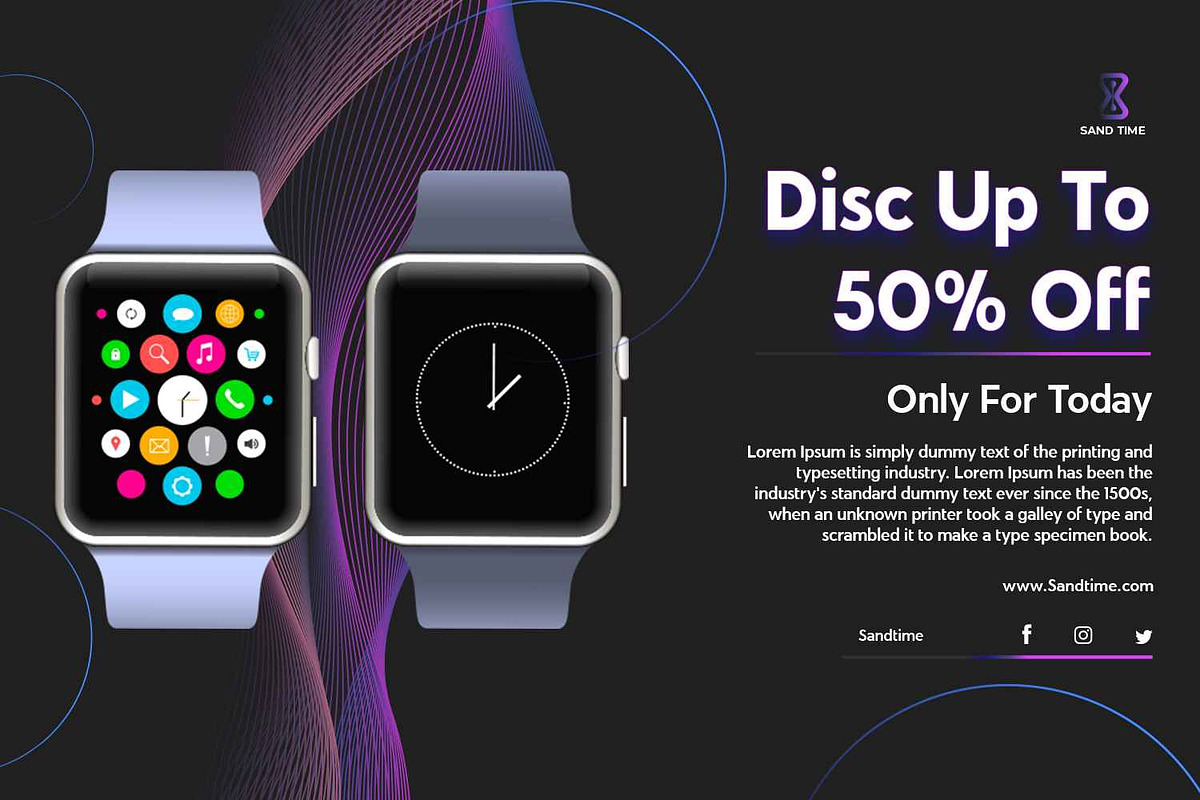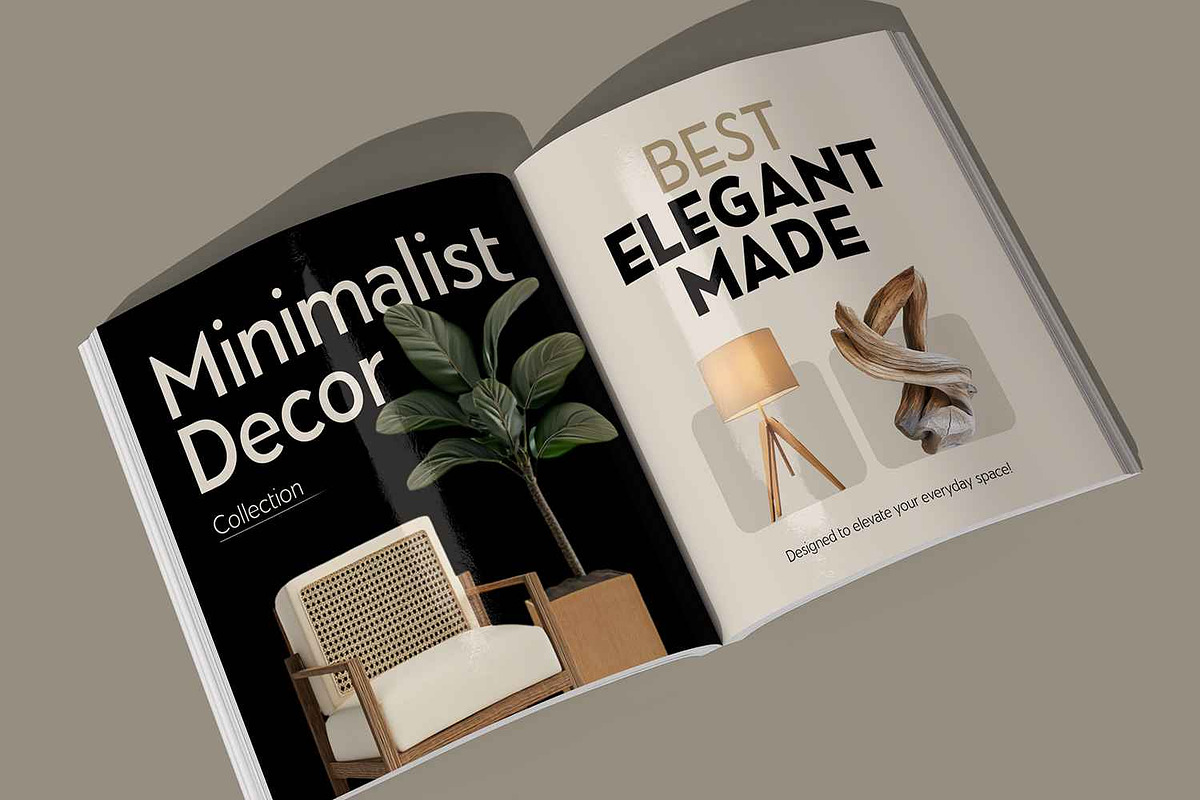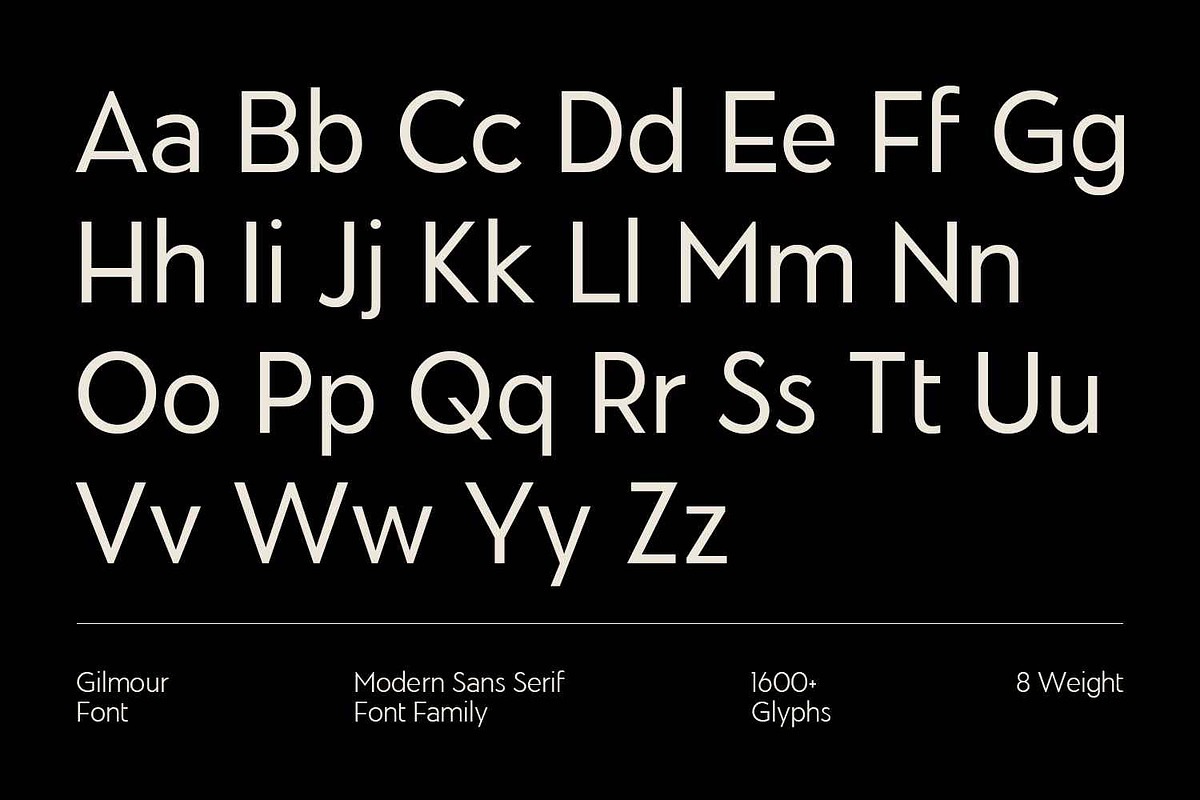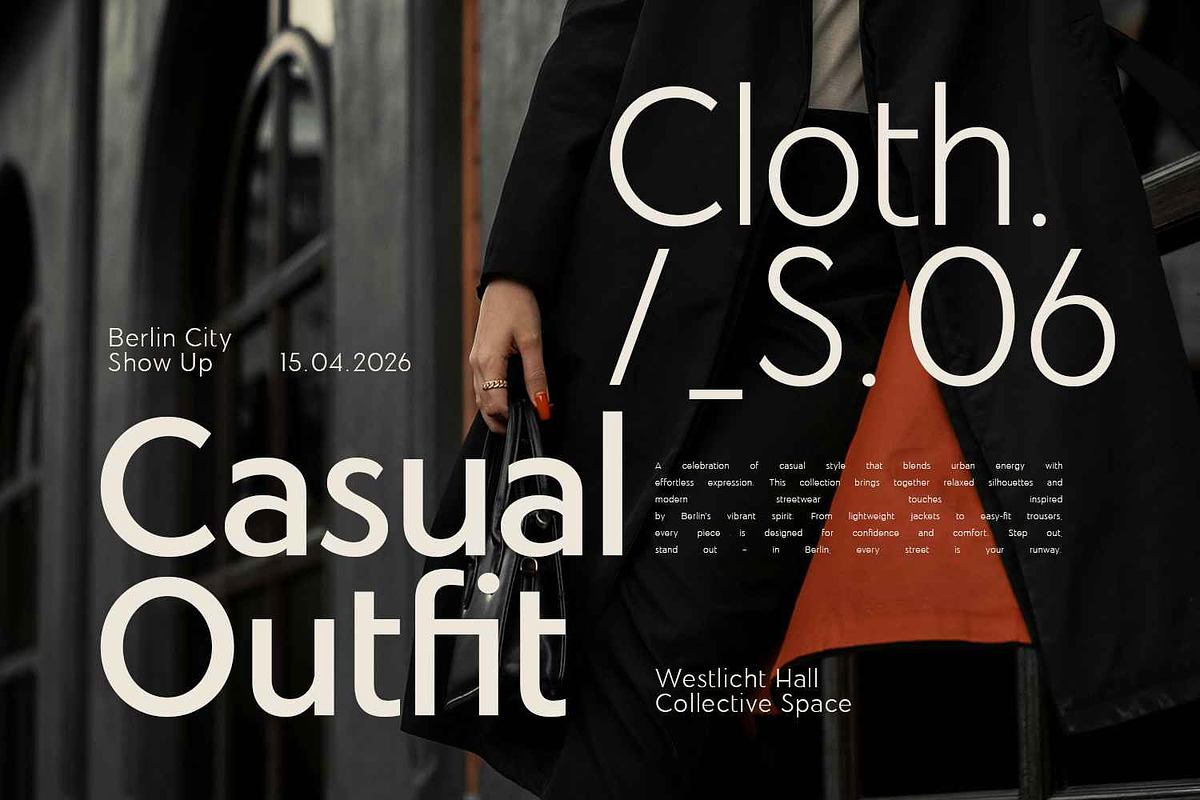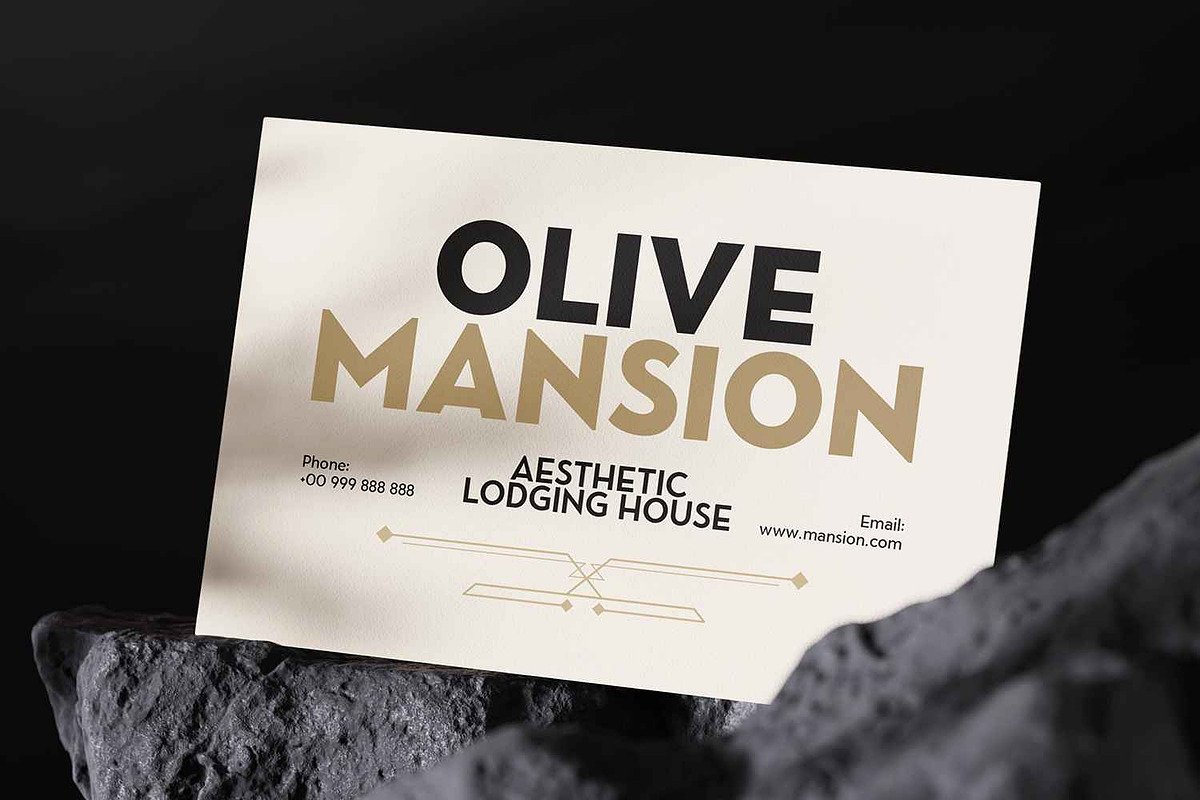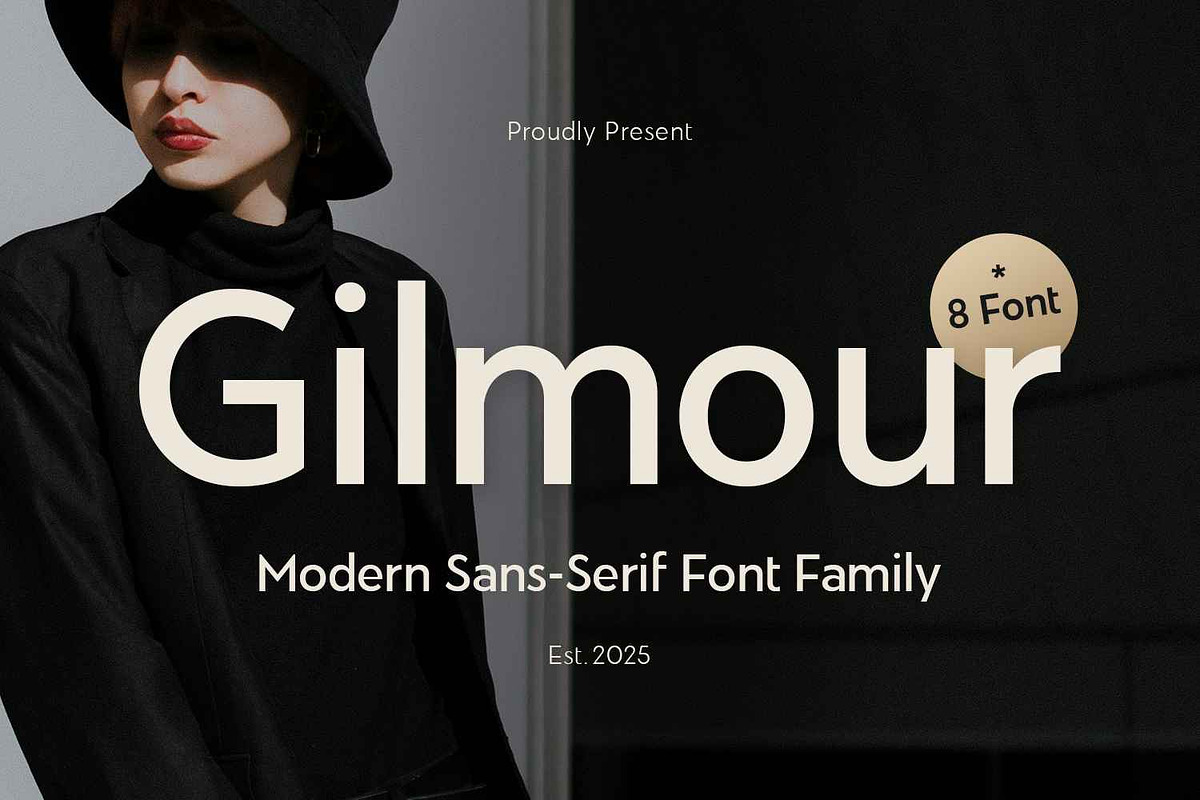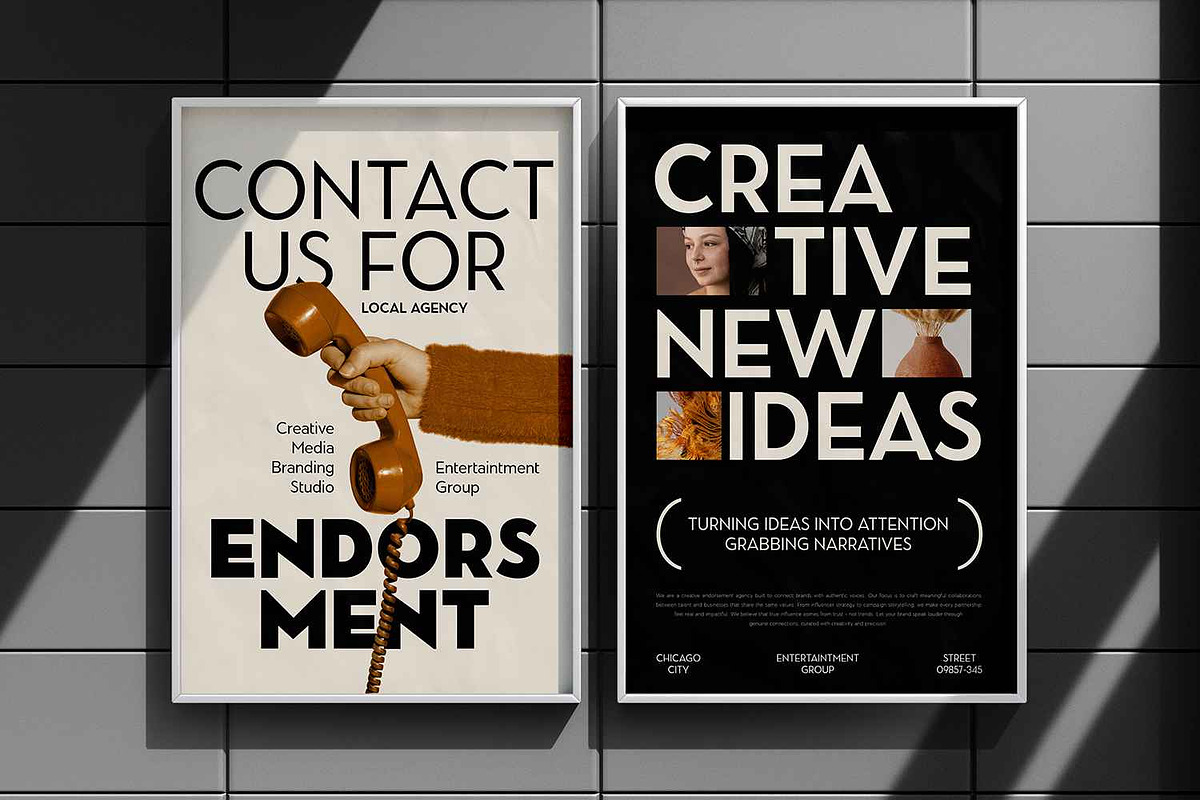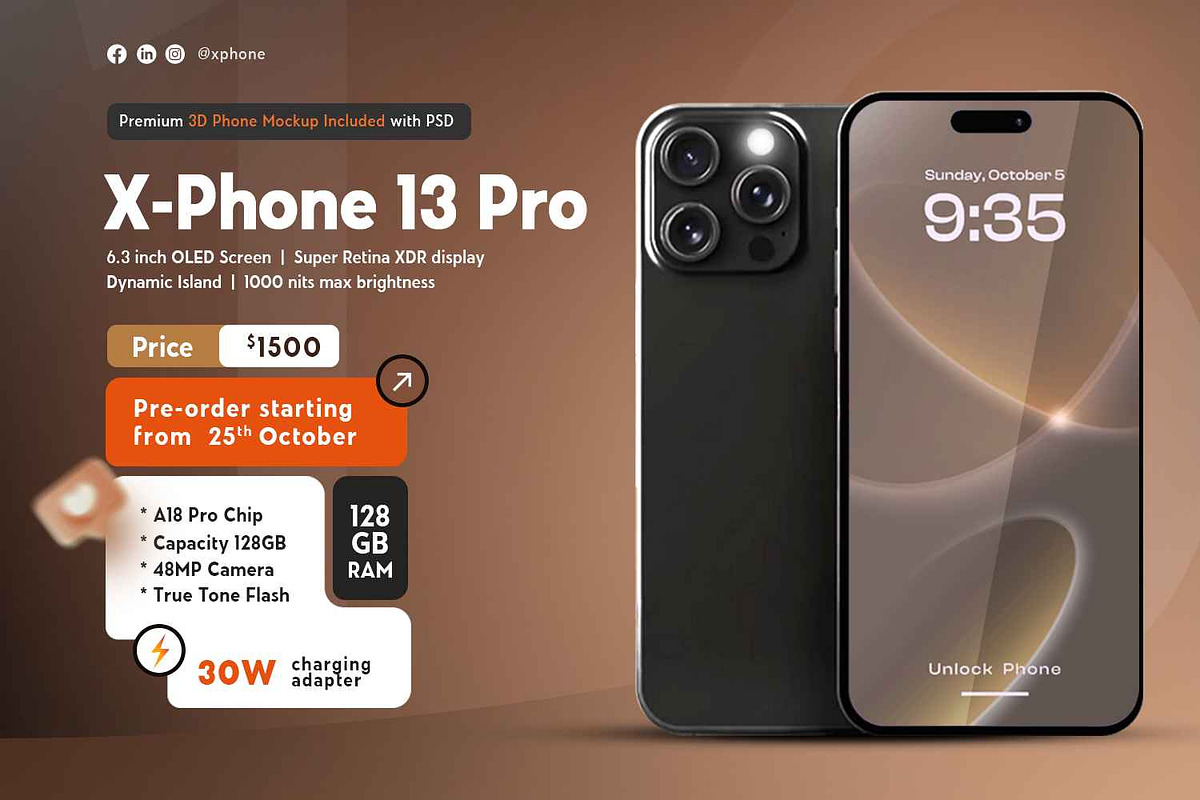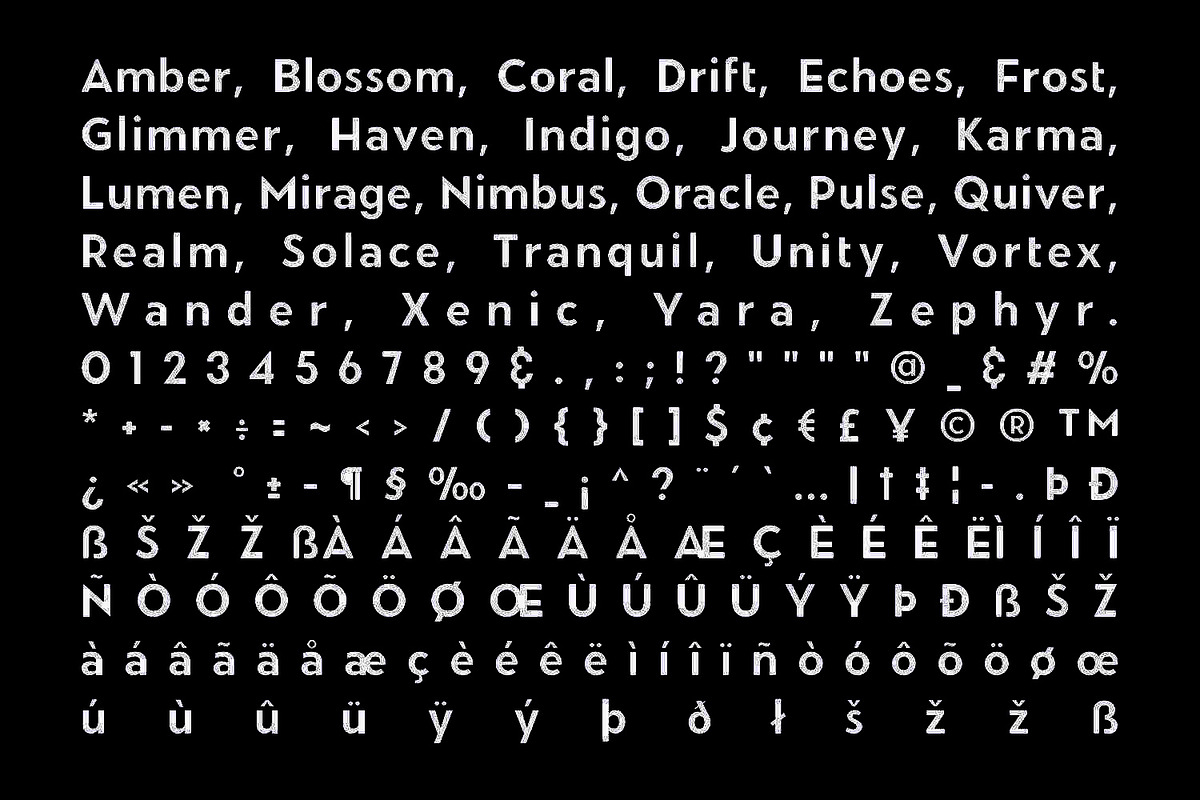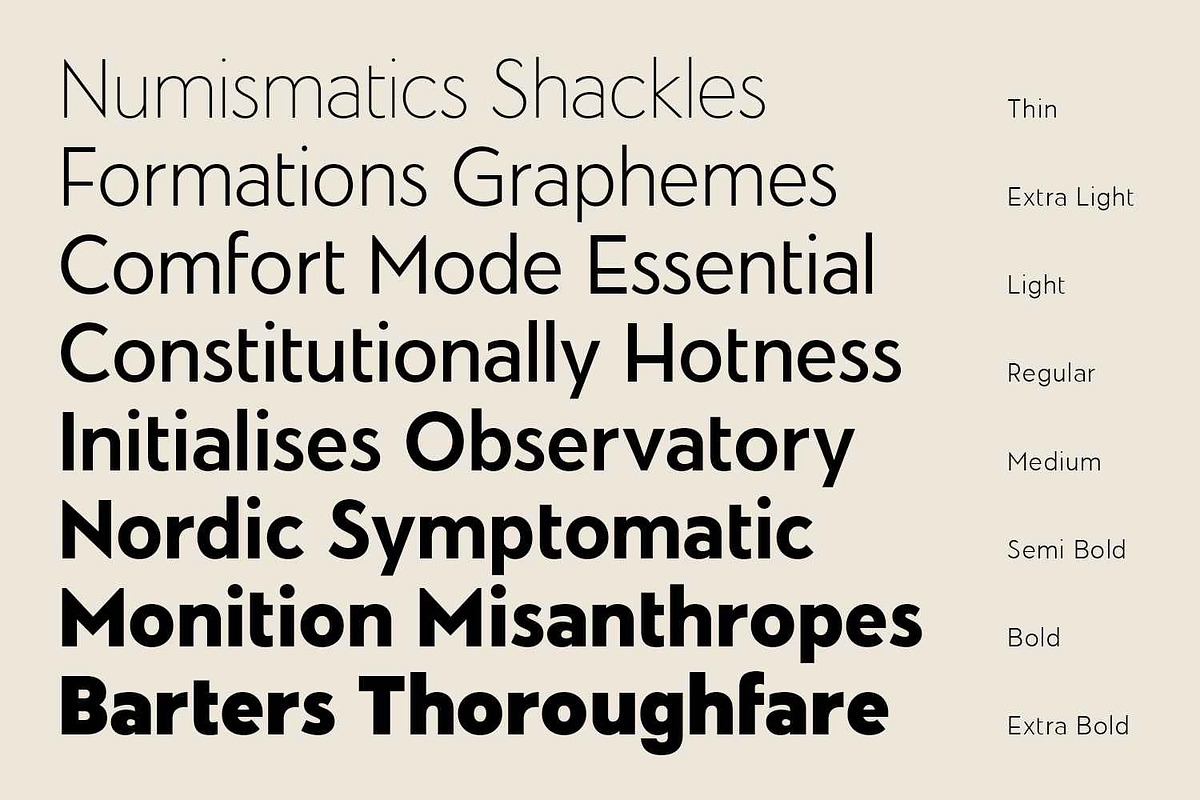
Gilmour Font Family
Gilmour – Sans Serif Font Family & Brand Identity Font
Gilmour is a sleek geometric font family defined by precision, balance, and modern simplicity. Built on clean shapes and even proportions, it captures the essence of timeless minimalism. Each letterform is carefully constructed to deliver clarity and visual harmony, creating a perfect equilibrium between sharp geometry and smooth readability.
Featuring eight distinct weights — from delicate Thin to commanding Extra Bold — Gilmour offers full creative flexibility across design applications. Its consistent rhythm and refined structure make it adaptable for both display and text settings, ensuring coherence in every composition.
The geometric foundation of Gilmour lends a sophisticated yet approachable character to any layout. Its bold forms bring strength and stability, while its lighter weights provide elegance and space. The seamless transition between weights allows for dynamic typography systems with a unified aesthetic.
Ideal for branding, editorial design, digital interfaces, or signage, Gilmour elevates projects that demand precision and modern appeal. Its geometry-driven design language reflects confidence, innovation, and clarity—qualities that enhance both print and screen environments.
Explore the full potential of modern geometry and give your designs a polished, contemporary edge with Gilmour Font Family.
- Fonts include multilingual support